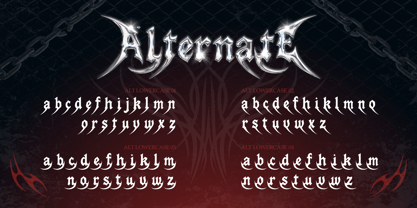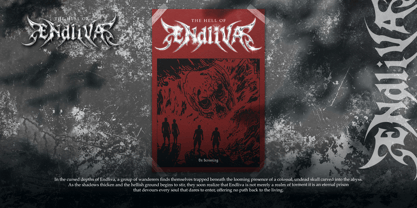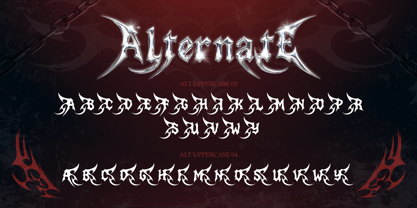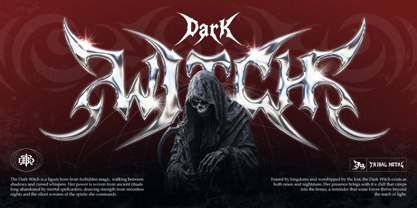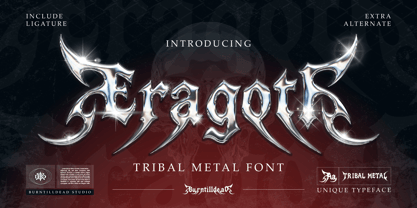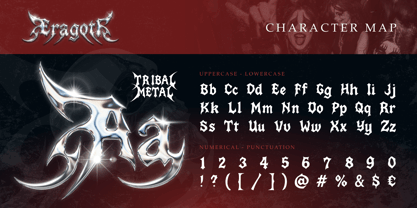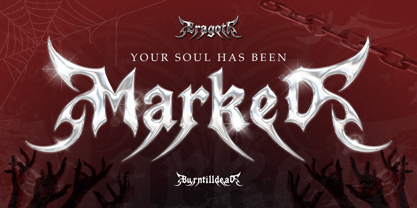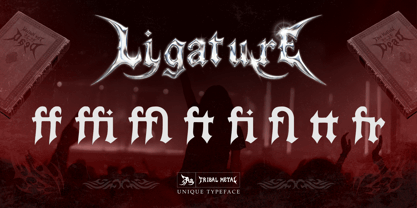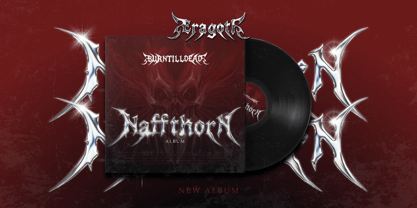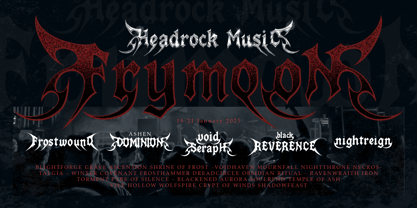
Eragoti
by Burntilldead
The Eragoti Font Family was designed by Eric Kurniawan and published by Burntilldead. Eragoti contains 1 styles. More about this family
Eragoti is a dark tribal metal typeface crafted to deliver an aggressive, mystical, and powerful visual impact. Inspired by extreme metal aesthetics, ancient symbols, and sharp ornamental forms, this font features razor-edged strokes, dramatic curves, and bold silhouettes that instantly command attention. Every character is designed with strong contrast and distinctive spikes, creating a raw yet controlled look that feels both brutal and artistic. Eragoti comes with multiple uppercase alternates, allowing you to mix styles and build custom lettering that feels organic, chaotic, and unique, perfect for pushing your visuals beyond standard typography. This typeface shines in bold display use. It’s ideal for metal band logos, album covers, music festival posters, dark fantasy artwork, gaming titles, horror visuals, apparel graphics, and branding that demands intensity and attitude. Eragoti works best at large sizes, where its details can fully stand out. Features: A - Z set (Uppercase & Lowercase), Number, Punctuation, Alternates, Ligatures, Multilingual
Designers: Eric Kurniawan
Foundry: Burntilldead